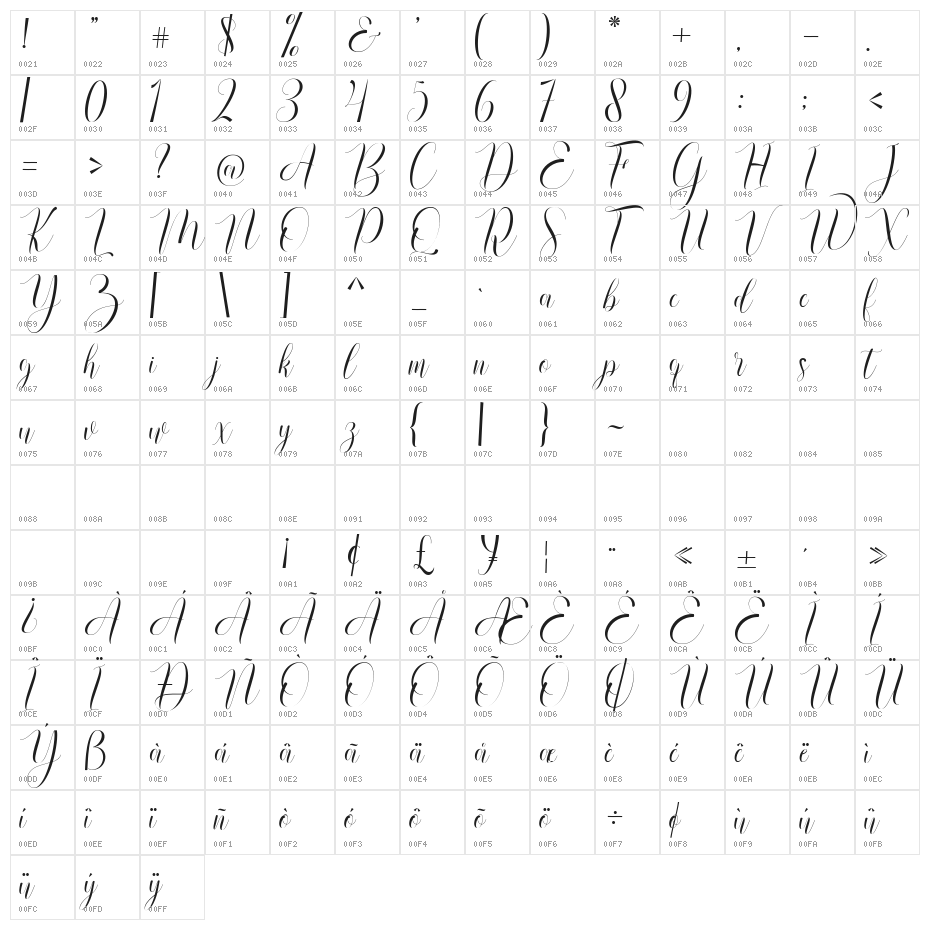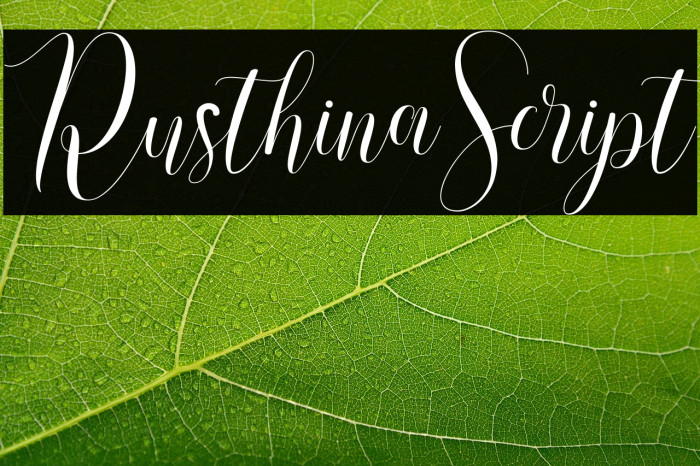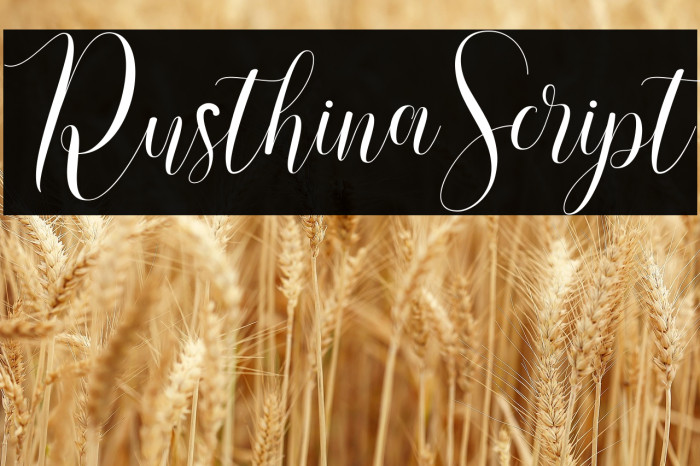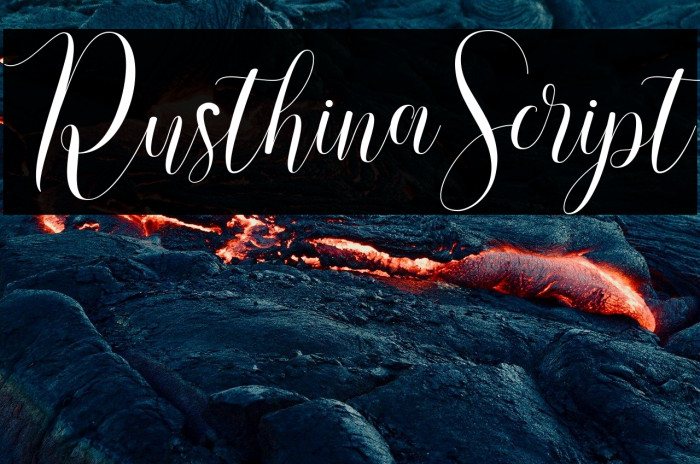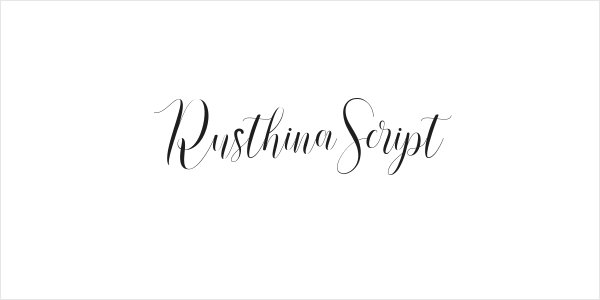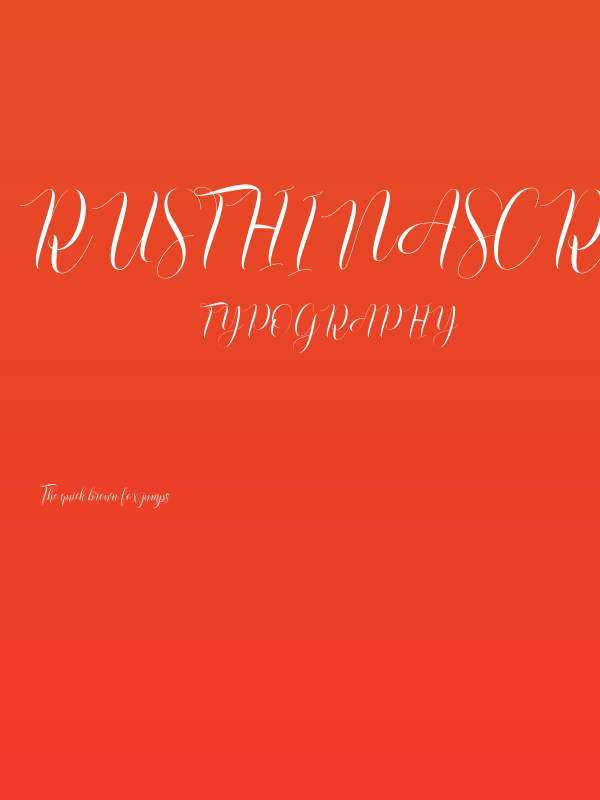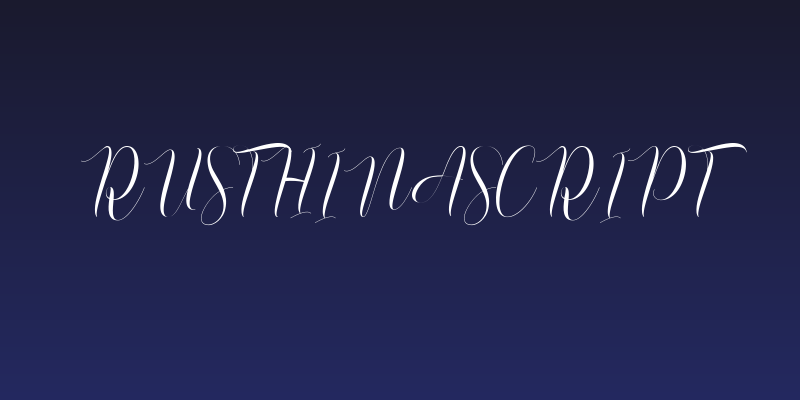
RusthinaScript Font
RusthinaScript Description
This elegant script font features fluid, cursive strokes that convey a sense of sophistication and grace. The uppercase letters are characterized by sweeping ascenders and descenders, creating a dynamic flow across the text. The lowercase letters maintain a consistent style, with smooth connections and a harmonious balance between thick and thin strokes. Numbers and special characters are designed with the same attention to detail, ensuring a cohesive appearance throughout. The overall aesthetic is both classic and modern, making it versatile for various design applications.
| Overall Style | Elegant, Modern |
| Use Case | Logos, Invitations, Branding |
| Proposed Projects | Ideal for wedding invitations, elegant branding, luxury packaging, and high-end editorial design. |